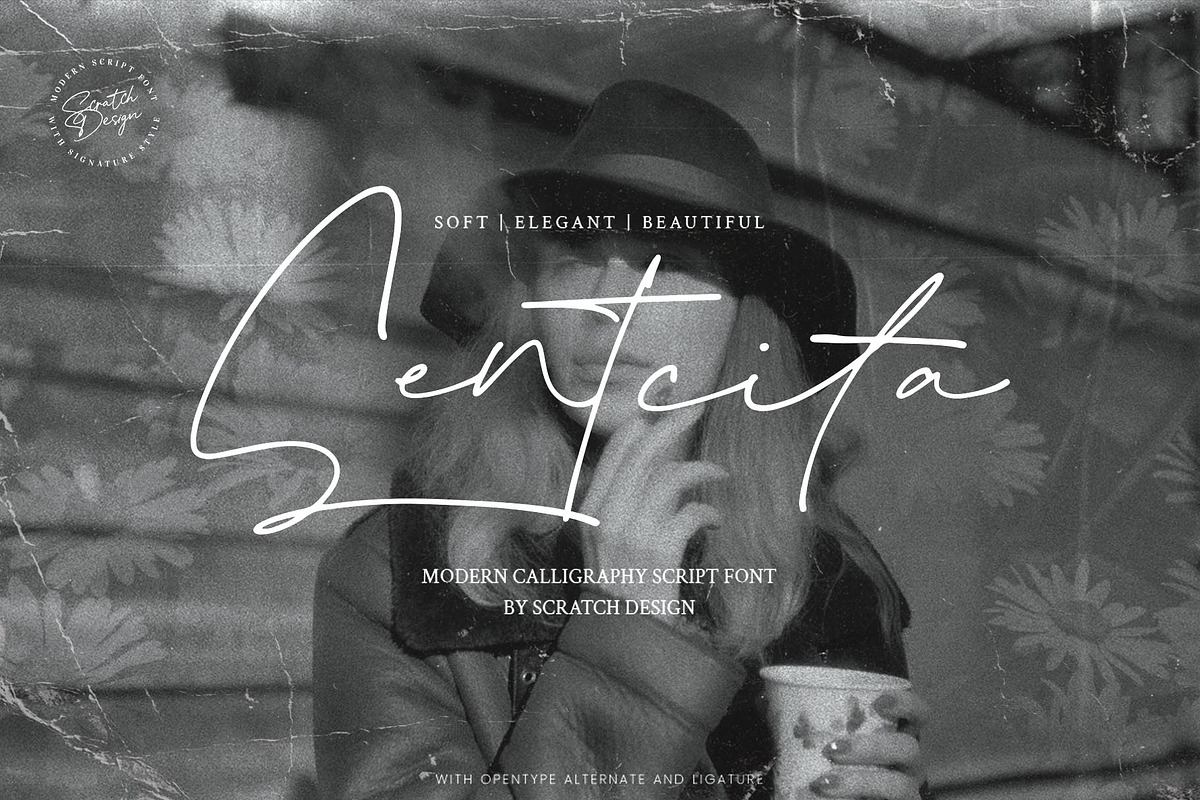
Sentcita Modern Script Font Free Download is an elegant and contemporary script typeface that exudes sophistication and style. With its flowing curves and modern design, Sentcita is perfect for branding, logos, invitations, and other creative projects that require a stylish, handwritten touch. Its unique letterforms give a personal and refined feel to any design.